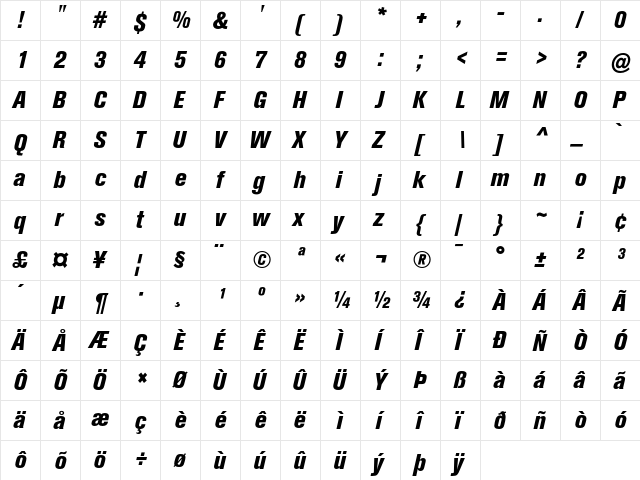
Akzidenz-Grotesk BQ Extra Bold Condensed Italic Alt Font Preview
Design Context for Akzidenz-Grotesk BQ Typeface
Akzidenz-Grotesk BQ takes a clean, functional approach — its unadorned letterforms prioritise legibility and work reliably across screen and print environments. Its italic angle brings a sense of urgency and motion to the letterforms. The heavy weight commands attention and anchors typographic hierarchies. Its narrow stance lets it pack a punch even in space-constrained designs.
A strong choice for UI design, app interfaces, bold signage, and corporate brand systems.
Font Pairing: Use Akzidenz-Grotesk BQ for headlines alongside a lighter-weight sans or serif for body copy to establish clear visual hierarchy.
Pro Tip: Try Akzidenz-Grotesk BQ in all-caps with moderate tracking for navigation and label copy — it performs well in systematic UI contexts.